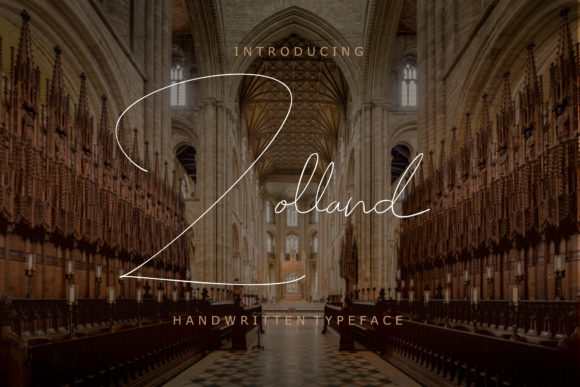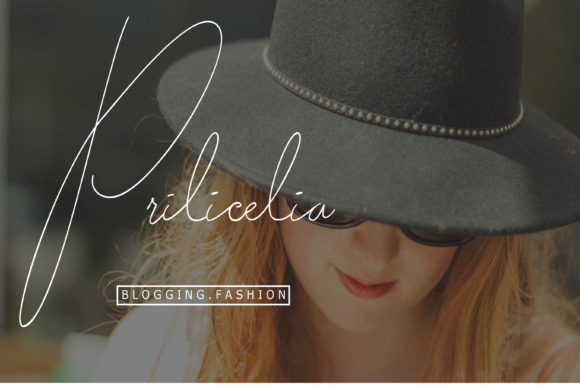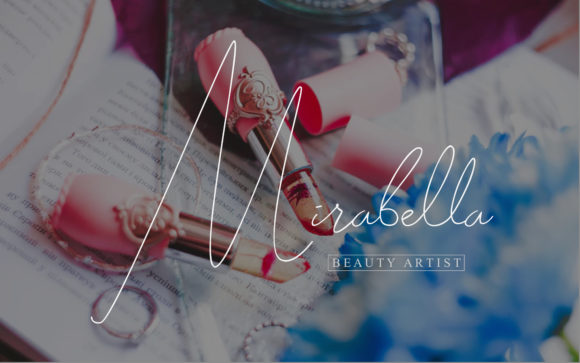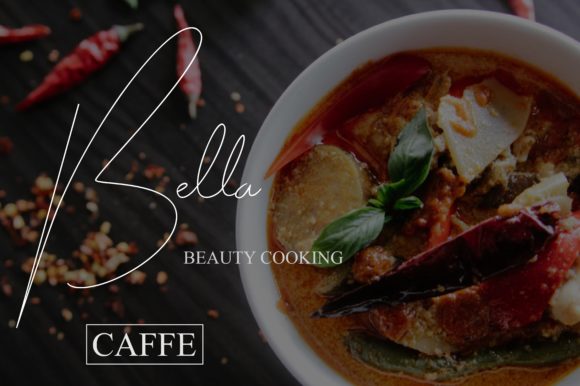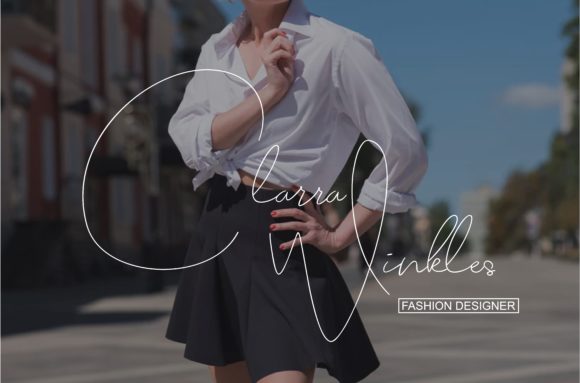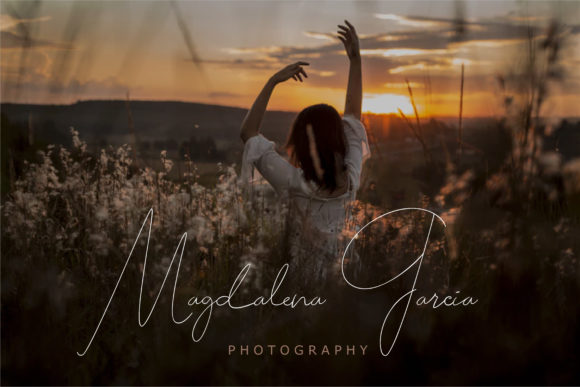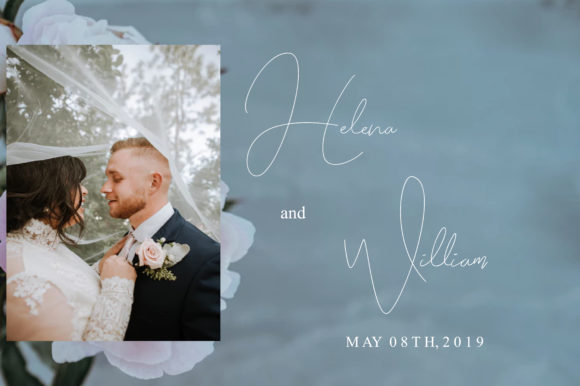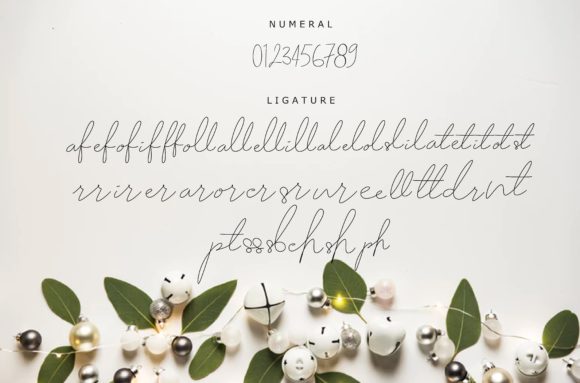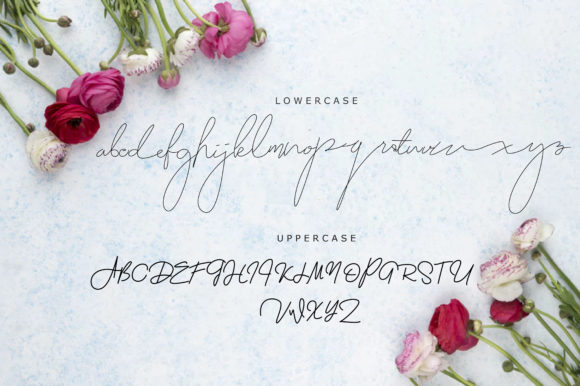
Zolland Font
About Zolland Font
Zolland is a stunning and elegant signature font that will turn any design idea into a true stand out. Get inspired by its delicate charm.